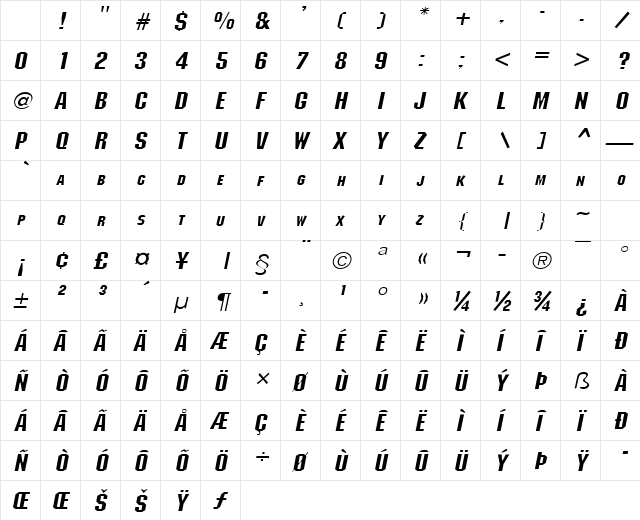
Complete Block-Extended Italic glyph index. Displaying only characters natively supported by Block-Extended Italic font.
Block-Extended is a composed and adaptable typeface that performs quietly and consistently across a wide range of design contexts. The slanted form adds forward momentum and visual energy.